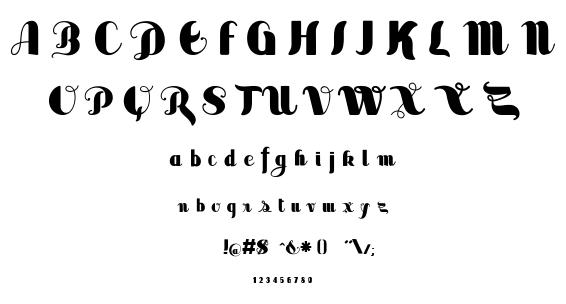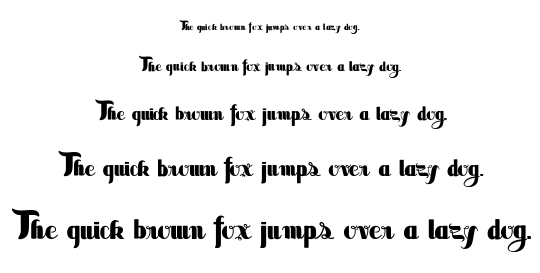
Sabor is a voluptuous upright connected display font with mixed taste of script fonts. There were many inspirations for Sabor, but all started with a book from the 1950s about the battles of World War II. To that first sketches of a naive dense display typeface we, day by day, start to create a mixed style evolving some lettering concepts from 1950s, some calligraphy notions and the first display ideas. The feeling of this font is good to be used in many artworks, like logos, packaging, party invitations, layouts for t-shirts, magazine headings, and much more, since websites to and all kind of printed jobs.